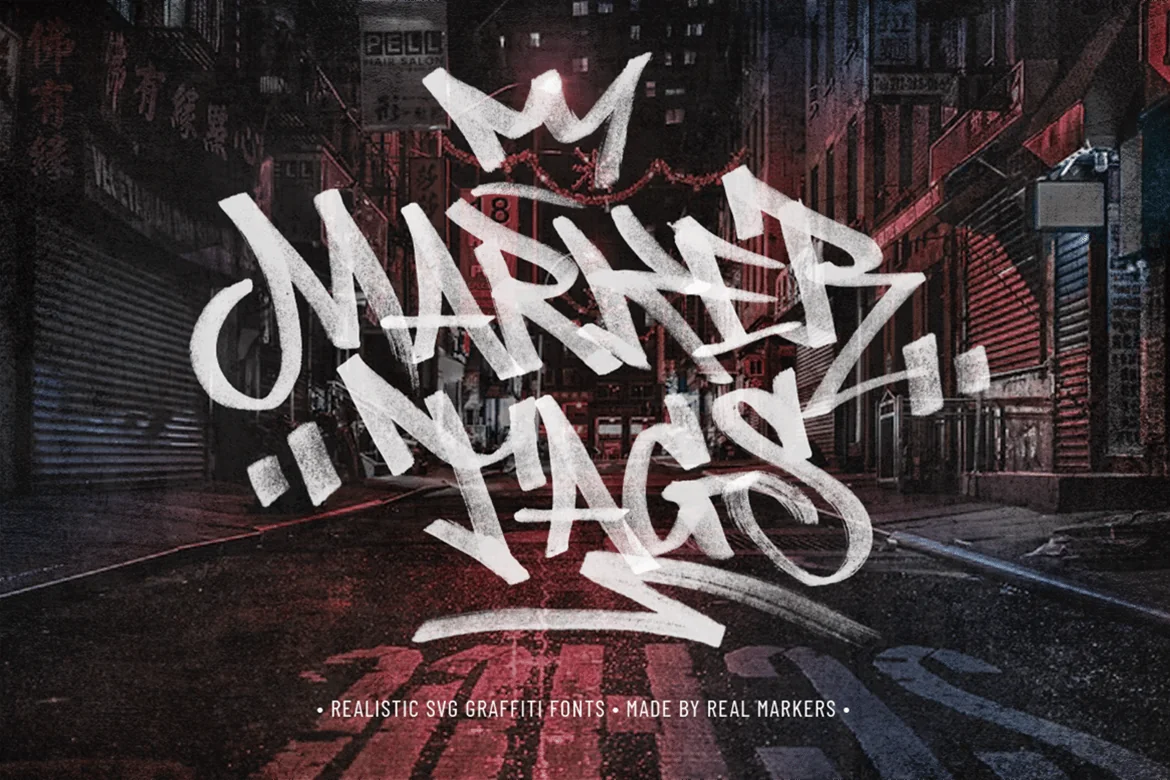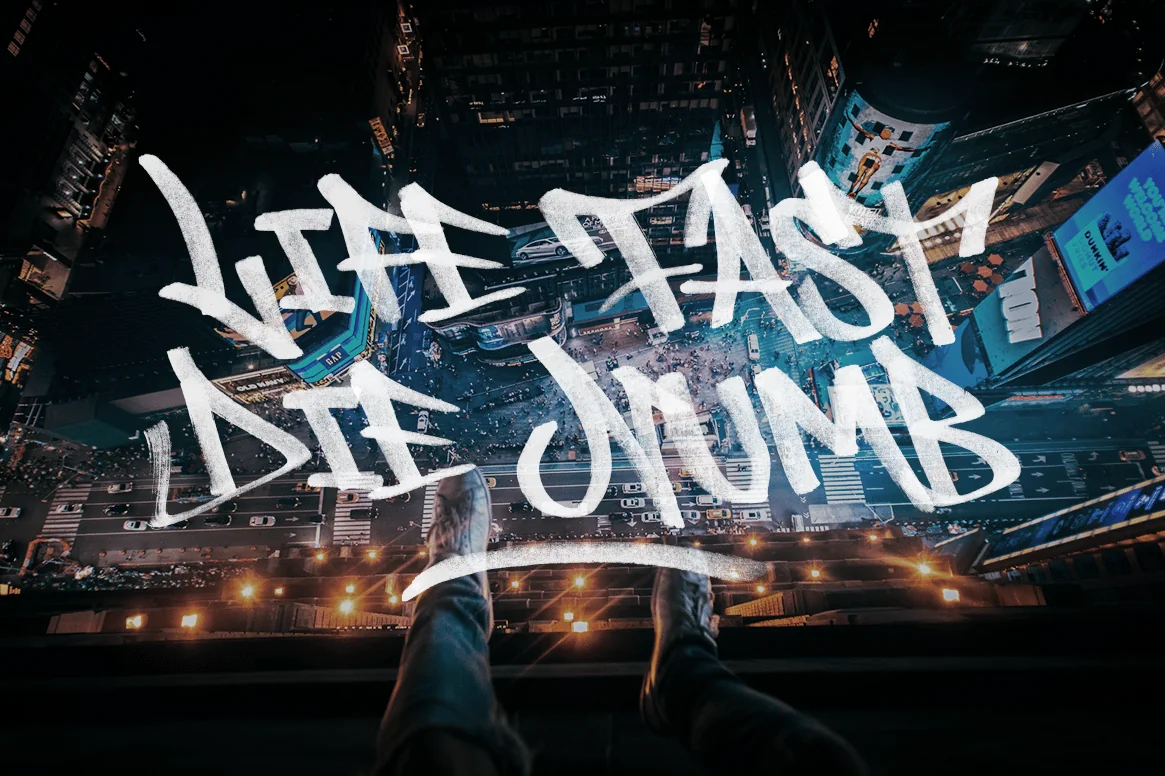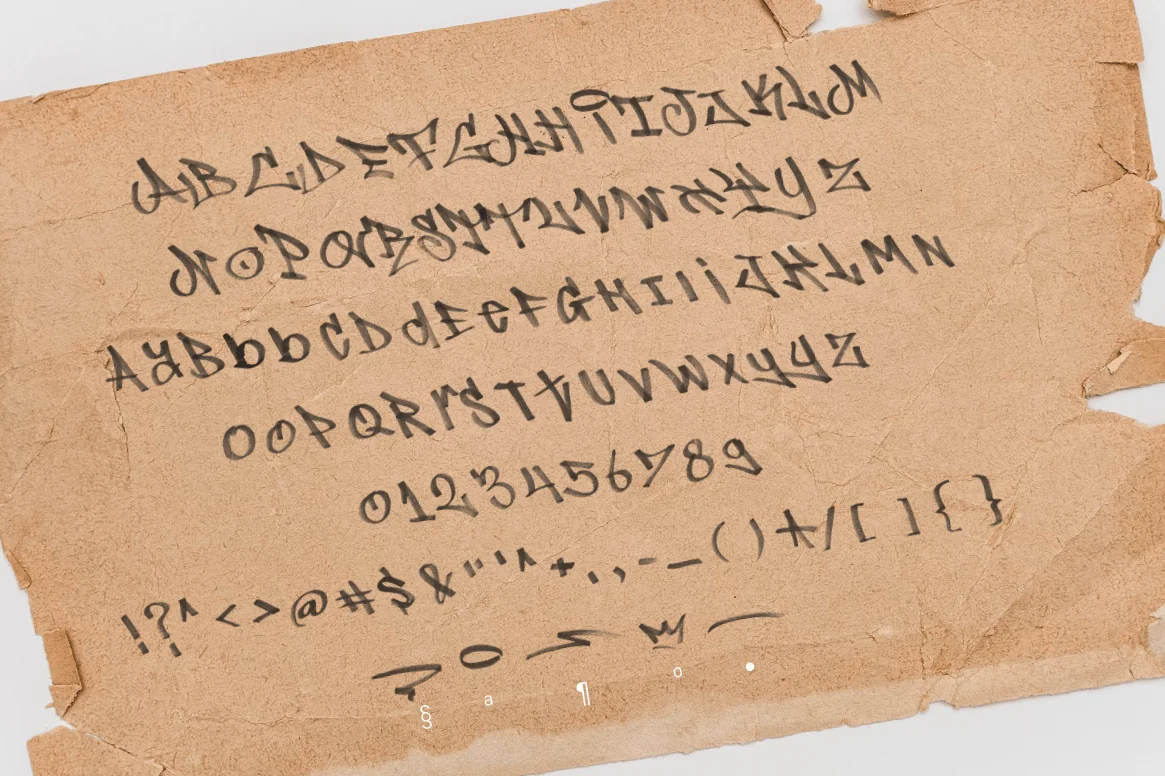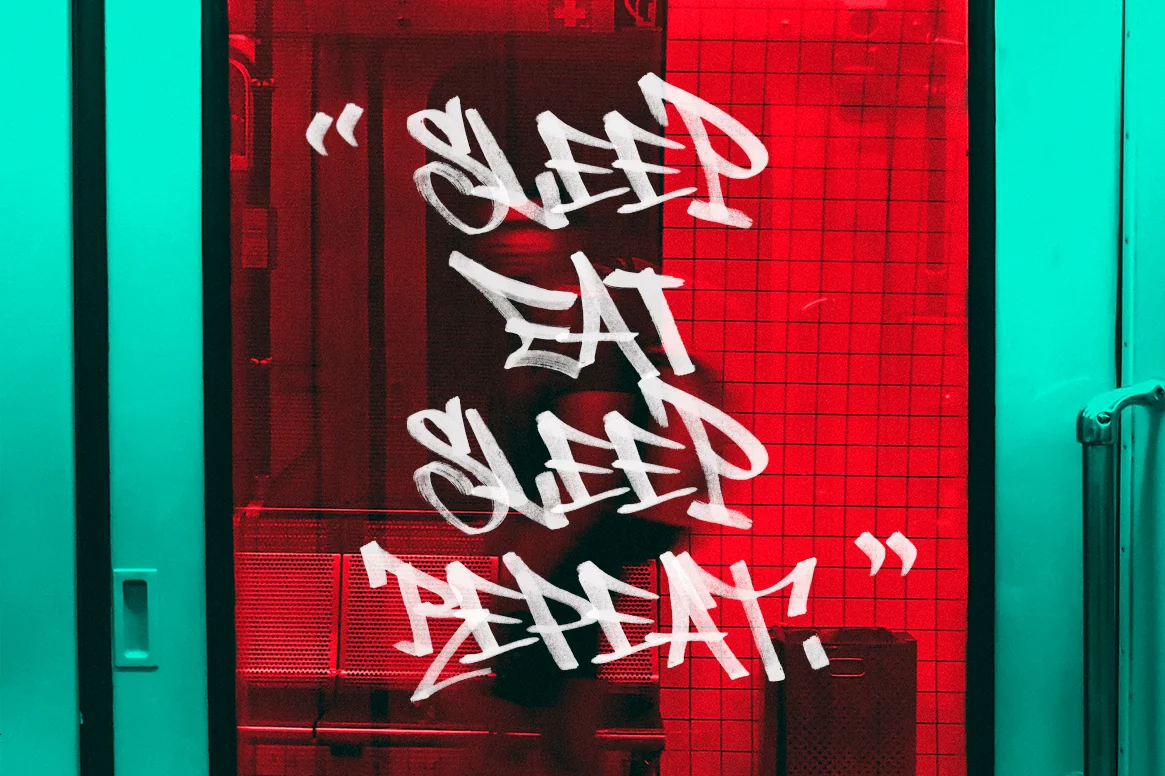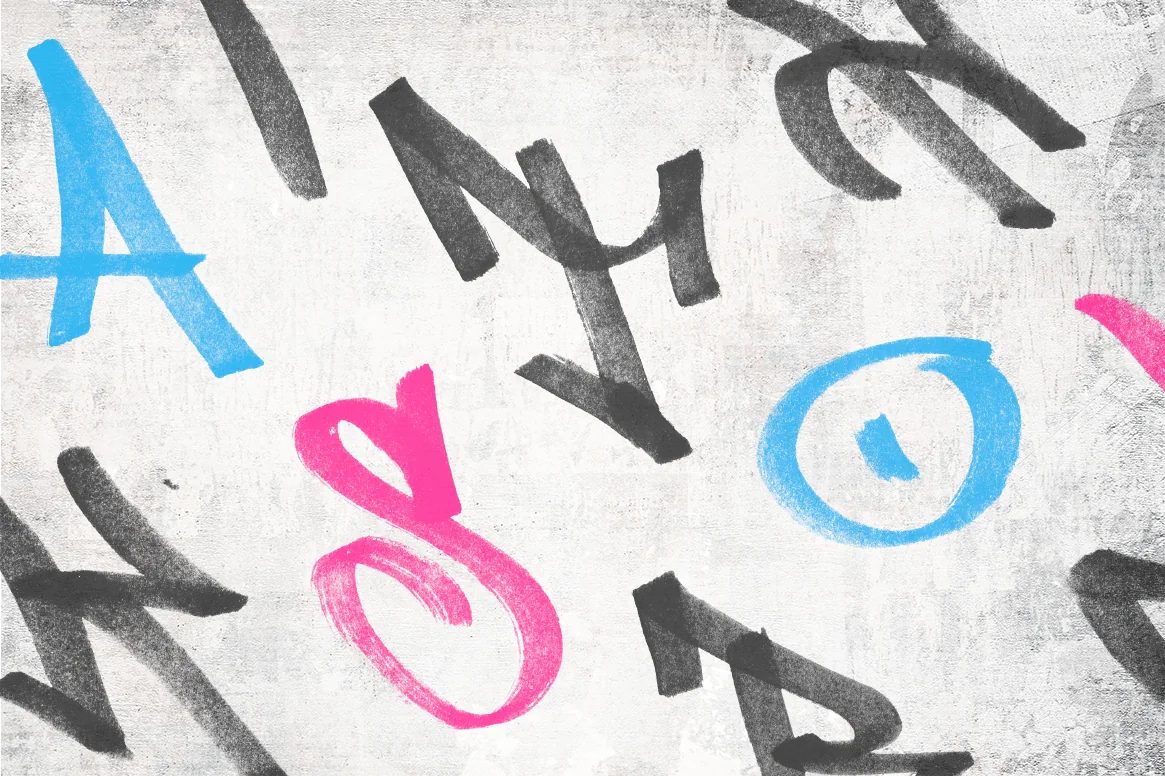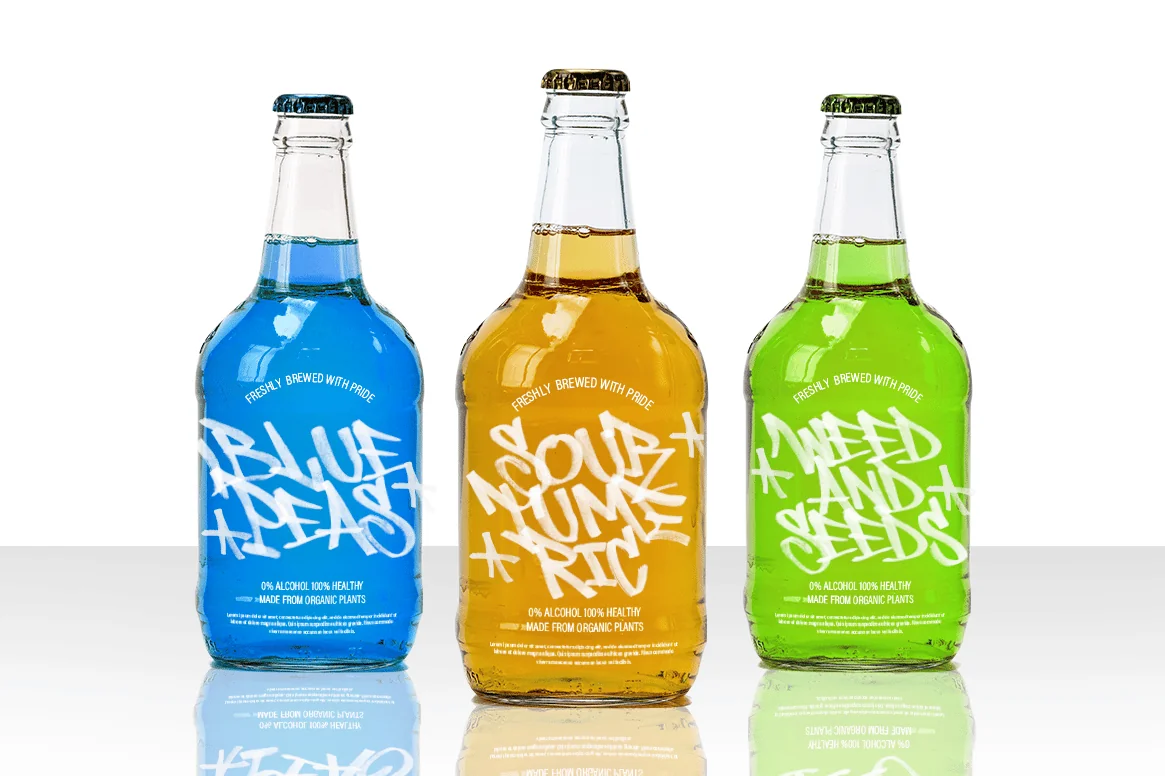
Graffiti Fonts | Marker Tags SVG
Created with real markers, I scan the images and choose the best letter for the fonts. I think it’s perfect for you if you need realistic graffiti style or grunge style. Because it’s blend with the real things if you use the SVG fonts.
As always this is graffiti realistic fonts so I recommend you to adjust again the kerning and spacing although I was doing the best way possible to adjust the kerning and spacing to make it look like real graffiti fonts, based on my graffiti experience at street.
You’ll get SVG fonts and regular fonts, also several alternatives glyphs, and custom glyphs to make your Grafiti tag more realistic.